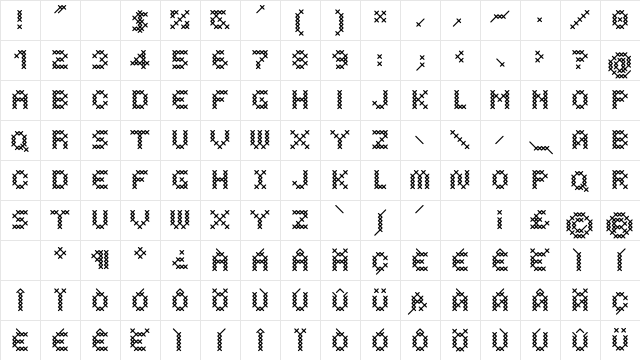
Costura DemiBold
Designer: Simon Wiesmayr
Design Context for Costura
Costura is a composed and adaptable typeface that performs quietly and consistently across a wide range of design contexts. Its bold stroke weight gives it real presence on the page.